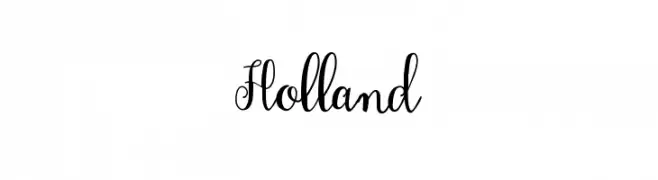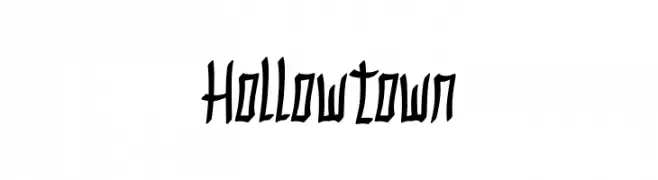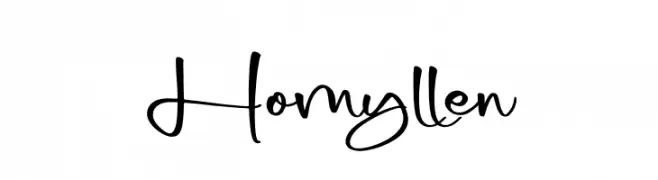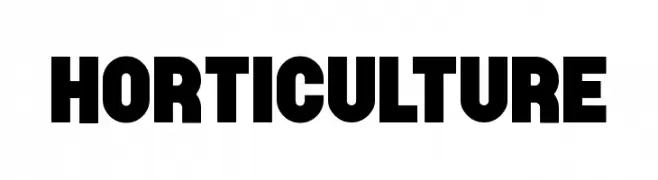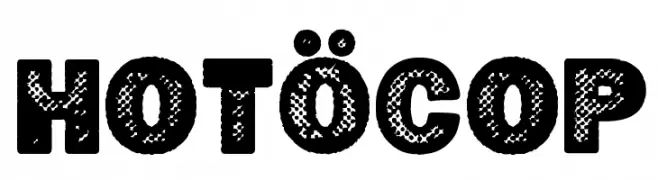
A playful, cursive font with dynamic strokes and elegant connections.
A bold, angular gothic-style font with sharp edges and dramatic flair.
A playful, cursive font with artistic, handwritten characteristics.
A bold, hand-drawn font with an energetic and playful style.
A decorative font with whimsical horse illustrations integrated into each character.
A bold, modern font with strong, uniform strokes and geometric precision.
A bold, distressed font with a textured, vintage appearance.